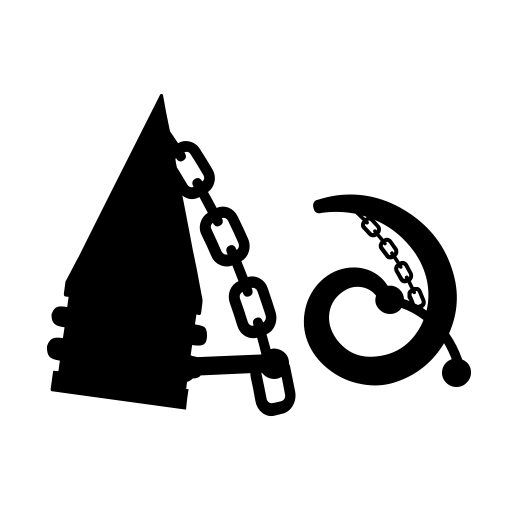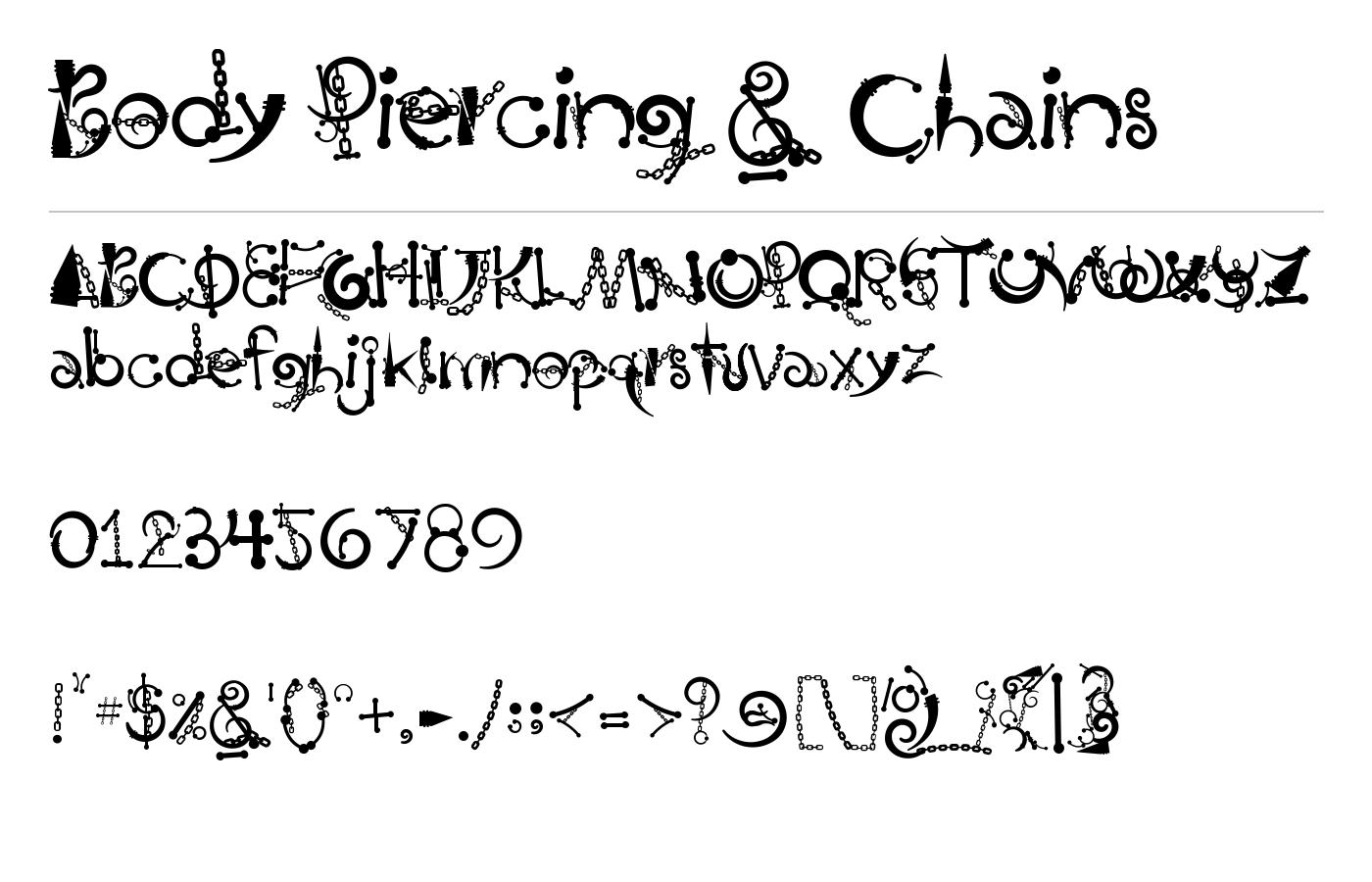
Body Piercing & Chains is a decorative, playful font with an edgy, alternative vibe, featuring intricate chain and piercing-like details woven into its quirky letterforms. Its irregular shapes and detailed embellishments make it ideal for bold, creative projects that demand a strong personality, such as punk-inspired branding, poster designs, or music-related visuals. This font stands out best in large sizes and expressive headlines where its unique style can truly shine.
Body Piercing & Chains Font